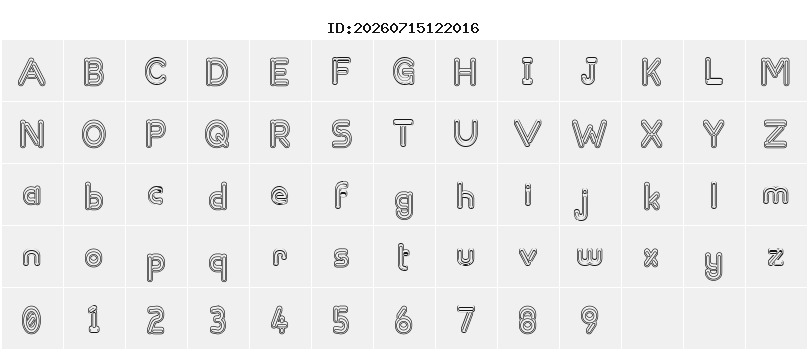
Zapped Sticks.ttf is a modern, elegant sans-serif font designed for ultimate readability and visual harmony. Perfect for branding, headlines, web design, and print materials.